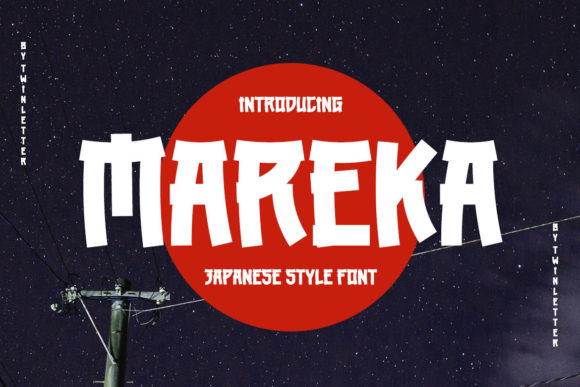
**Captivating Display: Discover the Allure of Mareka Font**
Immerse yourself in the captivating charm of Mareka, a display font destined to ignite your creative vision. Born from the creative minds at twinletter, Mareka boasts an unmatched style that dances effortlessly across every character.
With Mareka, your designs will transcend ordinary and embrace the extraordinary. Its bold and distinctive shape commands attention, making your projects stand out from the crowd. Whether you're seeking a striking logo, a captivating website banner, or a vibrant social media post, Mareka has you covered.
**The Essence of Japan in Every Curve**
Mareka embodies the captivating spirit of Japan, fusing tradition and modernity in a harmonious blend. Its intricate strokes evoke the delicate beauty of Japanese calligraphy, while its bold presence exudes the energy of contemporary design.
With Mareka, you can effortlessly infuse your creations with a touch of oriental allure. Capture the essence of a serene tea ceremony, evoke the bustling streets of Tokyo, or pay homage to the ancient art of origami.
**Transform Your Designs with Mareka**
Unleash your creativity with Mareka and witness your projects soar to new heights. Its versatility knows no bounds, empowering you to create captivating headlines, eye-catching posters, and unforgettable packaging.
Let Mareka's bold presence ignite your imagination and guide you towards designs that captivate and inspire. Embrace the allure of Japan and elevate your work to the realm of the extraordinary.